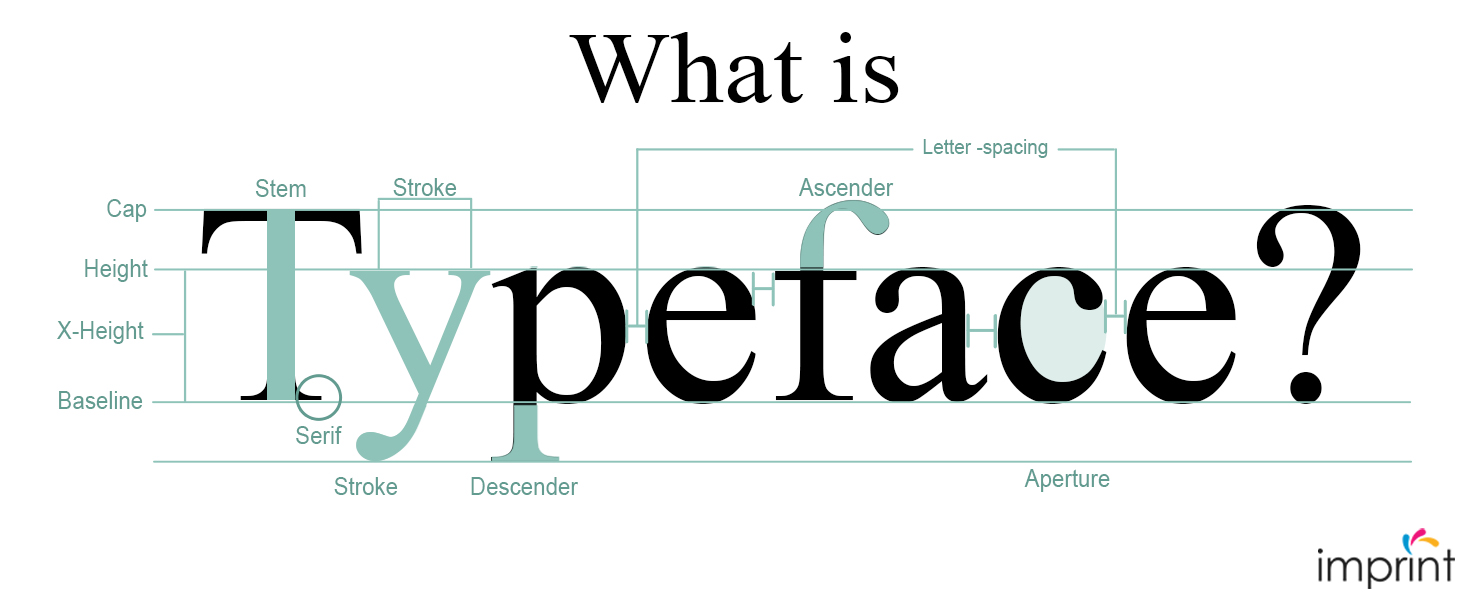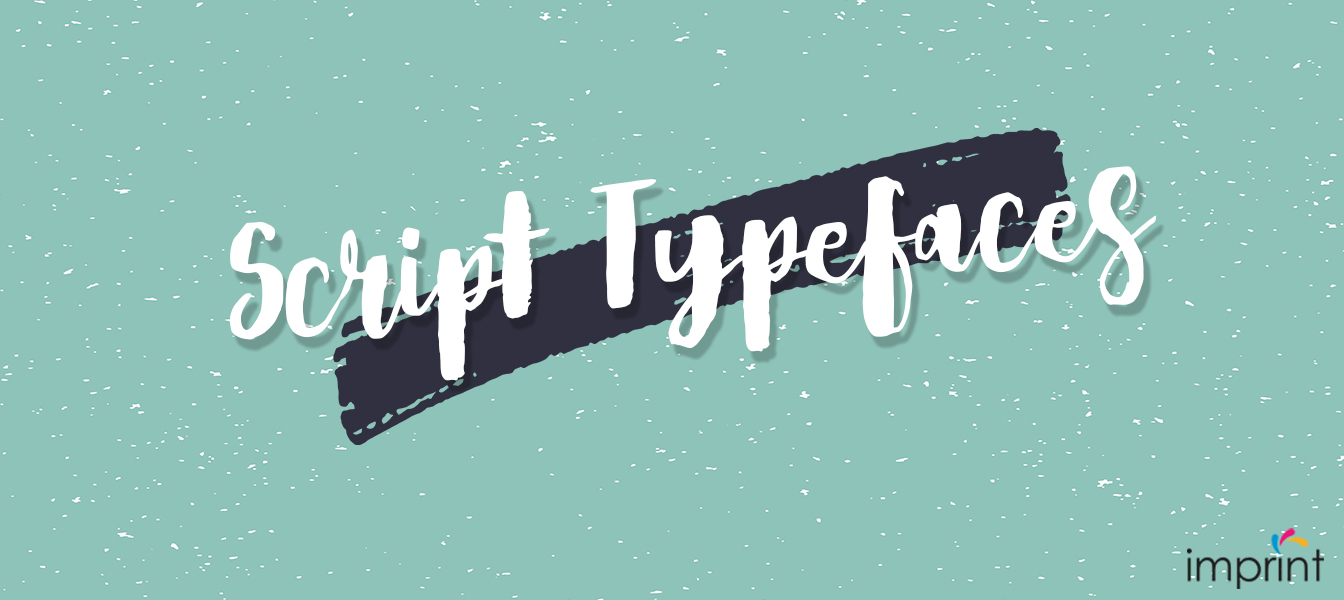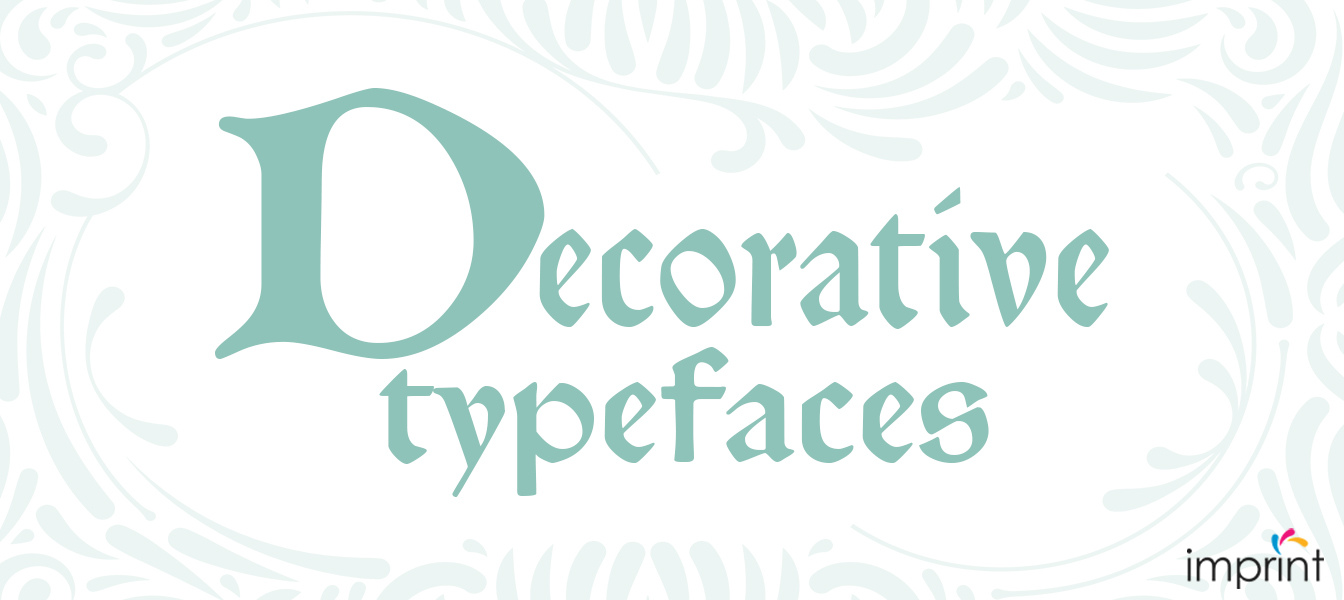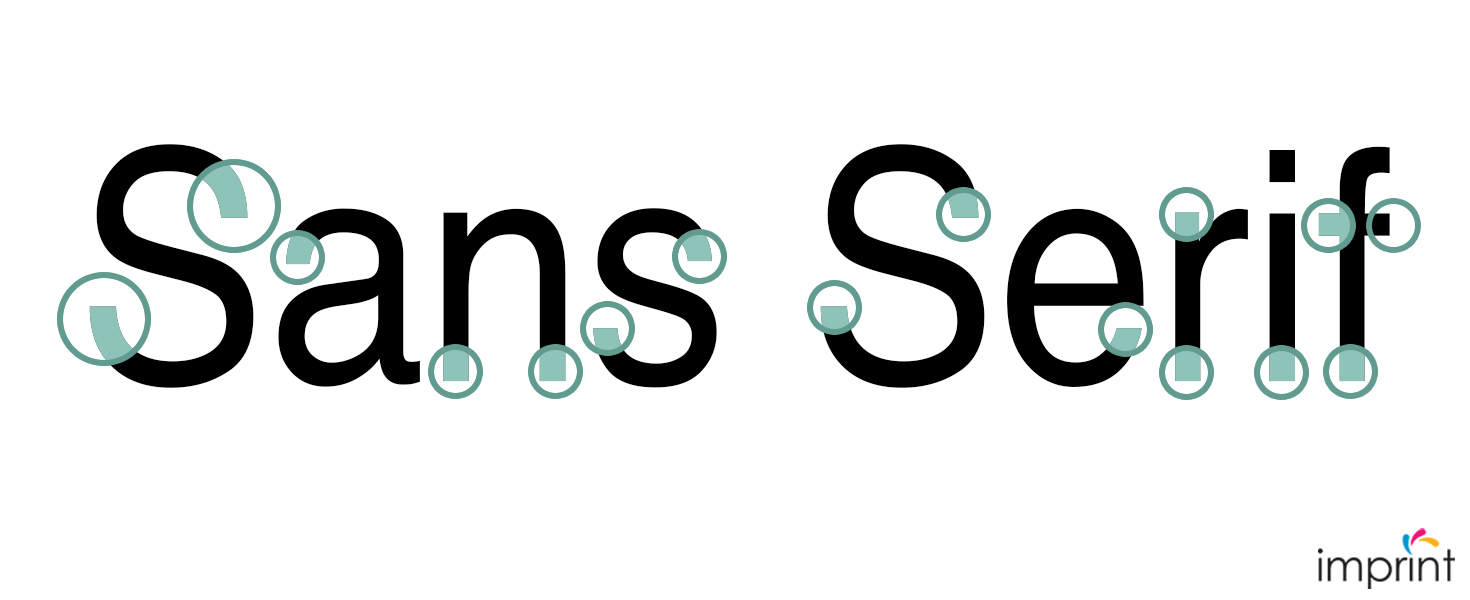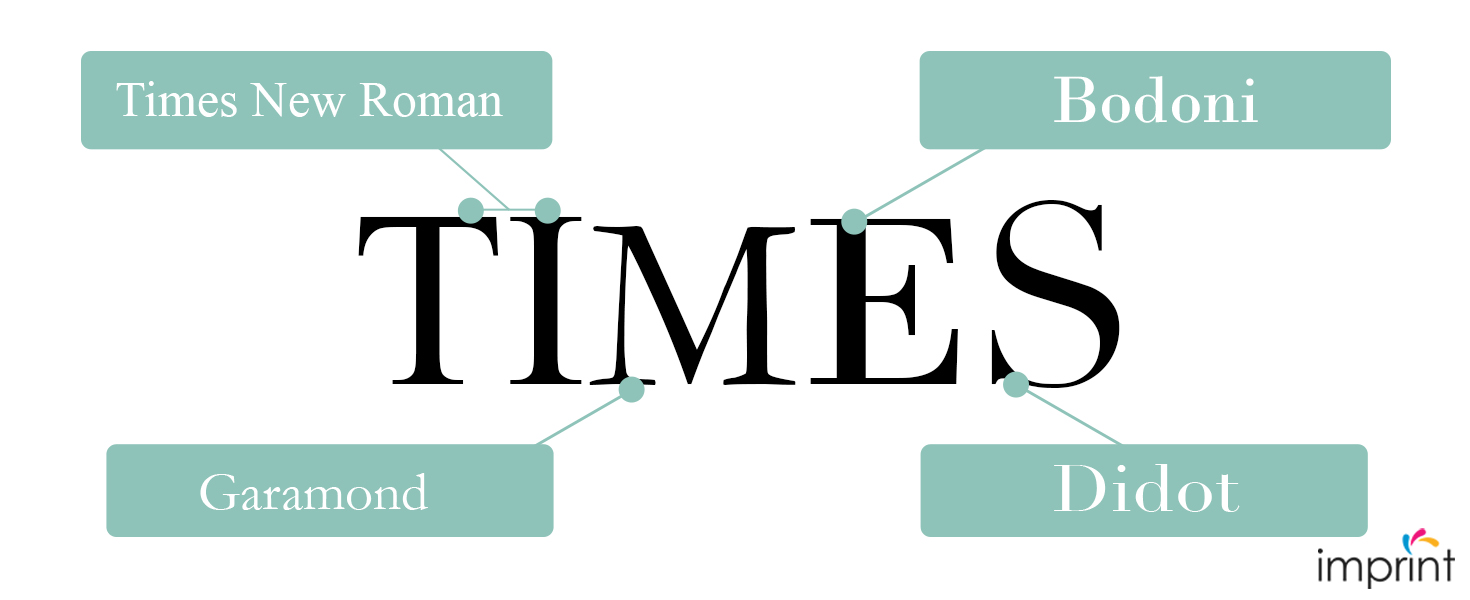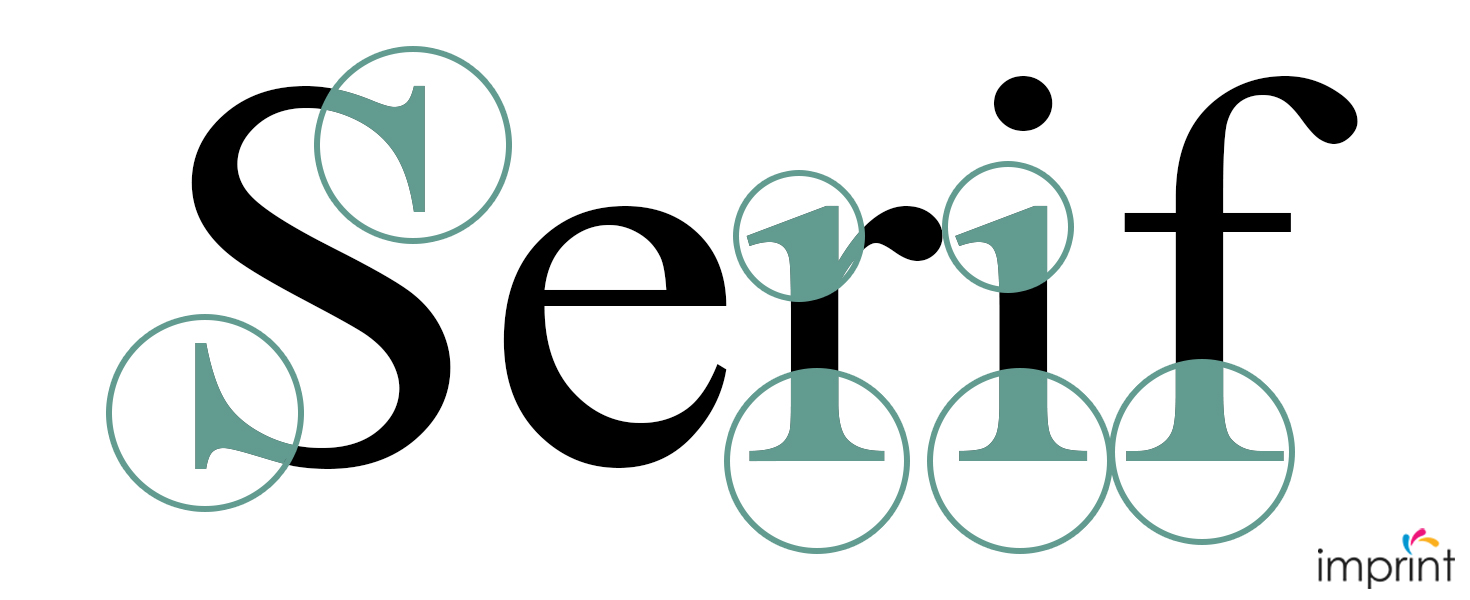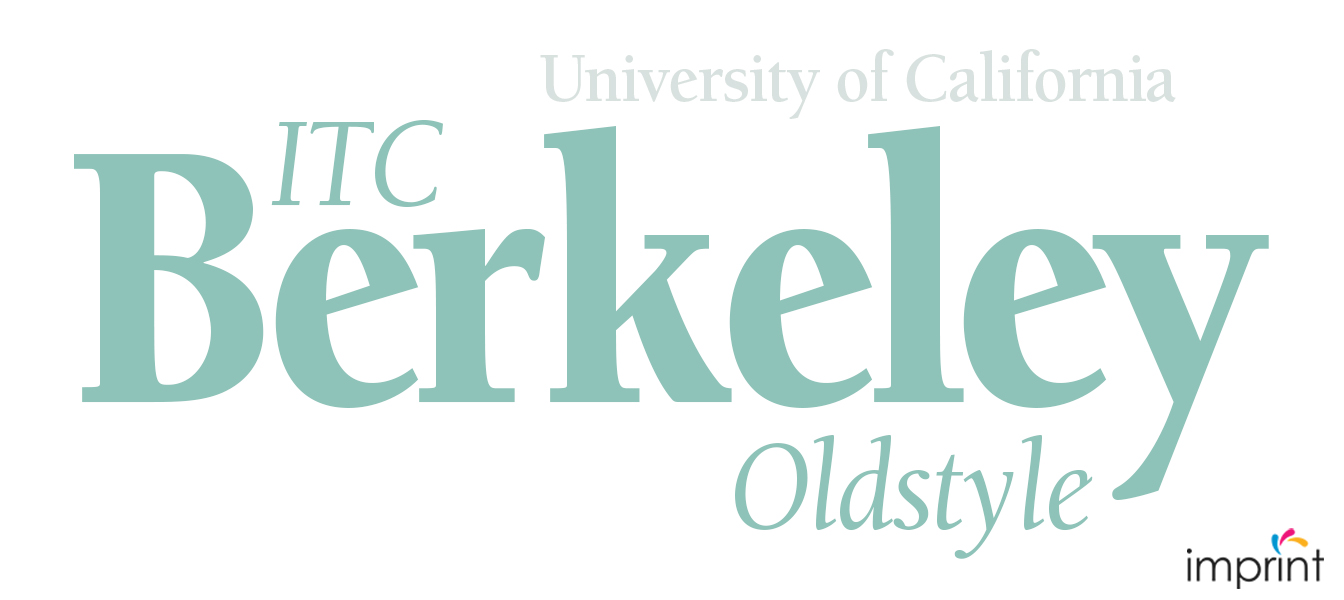
What’s the Difference Between a Font and a Typeface?
Typeface vs Font: The Difference Between Font And Typeface
Have you ever asked if a font and a typeface are the same thing? Is typeface only a term used by historians and academics? Perhaps one alludes to digital media, while the other to analog?
The simple answer is that they do have different meanings, but because the term “font” is so commonly used and misused, it doesn’t matter (unless you’re a type designer, in which case it does). If you’re wondering about the difference and don’t mind a little print history, keep reading; it’s rather simple!
What is Typeface?
A typeface represents a collection of design elements that define a specific style of letters. This can include the existence (or absence) of a serif, the relative height, spacing, and width of the letters, as well as any other aesthetically pleasing decorations. There are various types, which include:
Serif Typefaces
These are typefaces that include serifs, which have a little extension added to the ends of strokes. Serif typefaces have a classy, classic vibe to them.
Times New Roman, Garamond, Bodoni, and Didot are perhaps the most well-known serif typefaces.
Serif typefaces are commonly used in printed newspapers and news websites nowadays. It was also the default font in some older versions of Microsoft Word.
Many serif typefaces have centuries-long histories.
Some of its histories is in 1470, Nicolas Jensen created Roman as a technique to make printed text simpler to read. Another one is in 1993, Matthew Carter invented Georgia; another serif typeface that has more character and charm, it was inspired by Scotch Roman typefaces of the 1800s.
Sans Serif Typefaces
Sans serif typeface, in comparison to serif typefaces, Sans Serif typefaces do not have serifs. They tend to exude a more relaxed, easygoing demeanor.
Helvetica is a popular sans serif typeface. Verdana and Futura are two others. Another popular sans serif typeface is Open Sans, which ranks among the most popular Google Fonts with more than 1.5 trillion views in a year.
While this style emerged in the 1800s, it was not generally adopted until the 1920s and 1930s. Sans Serif typefaces gained popularity because of their refreshingly clean, simple, and more relaxed and informal vibe, particularly on mobile websites—sans serif typefaces are easier to read when browsing on a small screen.
Decorative Typefaces
Decorative typefaces are lively, eye-catching types that feel a little more niche than regular serif and sans serif typefaces.
These typefaces are often unsuitable for body text, not just because they can be obtrusive, but also because they can be difficult to read. This is especially true at lower scales. While a beautiful typeface font can be a terrific attention-grabber for your headline or outdoor sign, it can be a turn-off for readers when used on a menu or in a brochure.
Outlaw and Morris Troy are two well-known types of a decorative typeface.
Script Typefaces
Script typefaces resemble cursive handwriting. A script typeface might help you communicate that your brand is handcrafted and unique.
Script typefaces can be basic or elaborate. Popular script typefaces include Kuenstler Script, Kauffmann, and Brush Script.
Script typefaces, like decorative typefaces, can be difficult to read at tiny sizes. Keep these for your logo, headlines, and signage, and when you have heavier text, use a serif or sans serif font.
Old Style Typefaces
Before we go into fonts, let’s have a look at another typeface classification: Old Style typefaces. These have curved strokes with an axis that slopes to the left and a modest contrast between thick and thin lines.
ITC Berkeley Old Style, developed by Frederic W. Goudy in 1938 for the University of California, Berkeley, is a classic in this category. Bembo is another old-style typeface that was inspired by a printed travelogue by the Renaissance Italian writer Pietro Bembo.
What is a Font?
Now that we’ve established what typefaces are, you might be wondering, “What is a font?”
A font is simply a more particular way of describing the type of text being used. It focuses on the size and weight of a typeface.
Let’s look at the typeface Futura as an example:
As you can see, there are numerous Futura variants. In the image above, each line represents a distinct font. These fonts are distinguishable due to their various weights, however, they all belong to the same typeface.
The primary choices are typefaces. Fonts are the suboptions.
In this sense, a font is a term that incorporates all potential variations of a design, whether large, small, italic, bold, expanded, or condensed.